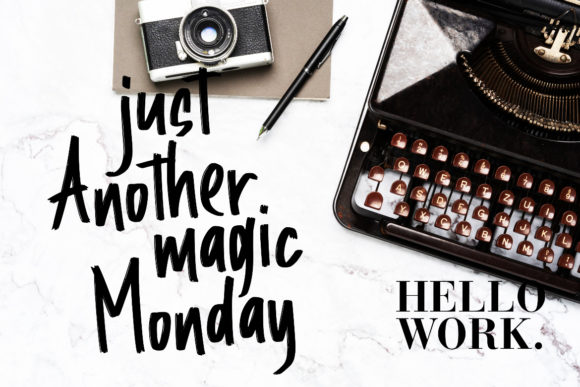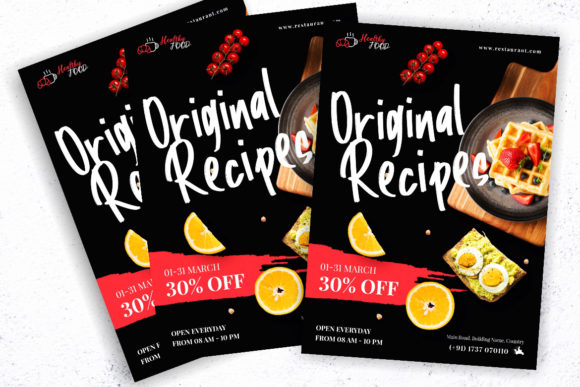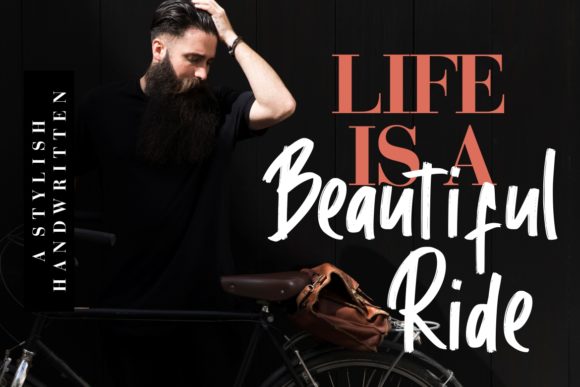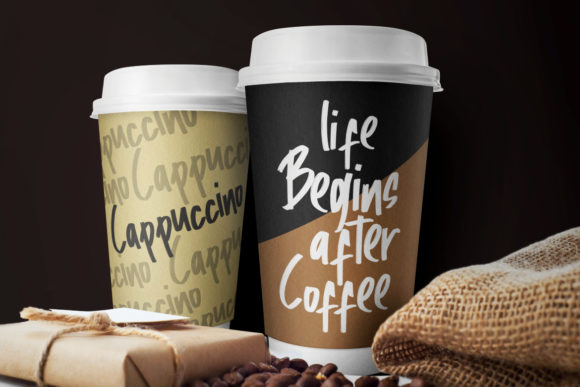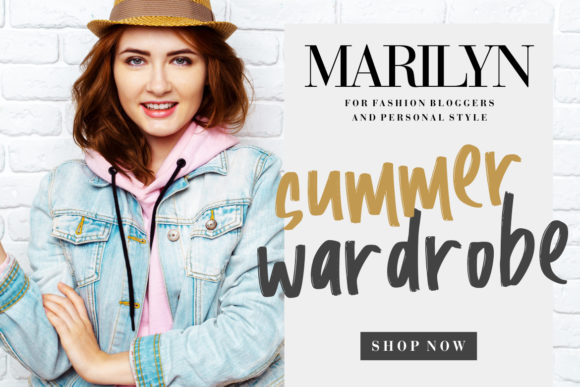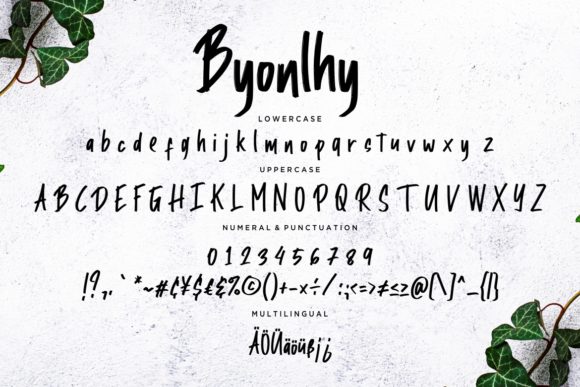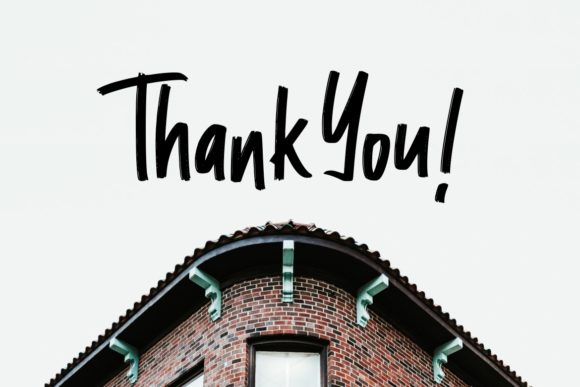
Jabawoky Font
About Jabawoky Font
Jabawoky is a stylish handwritten font. It is perfect for branding projects, logo, wedding designs, social media posts, advertisements, product packaging, product designs, labels, watermark, stationery and much more!